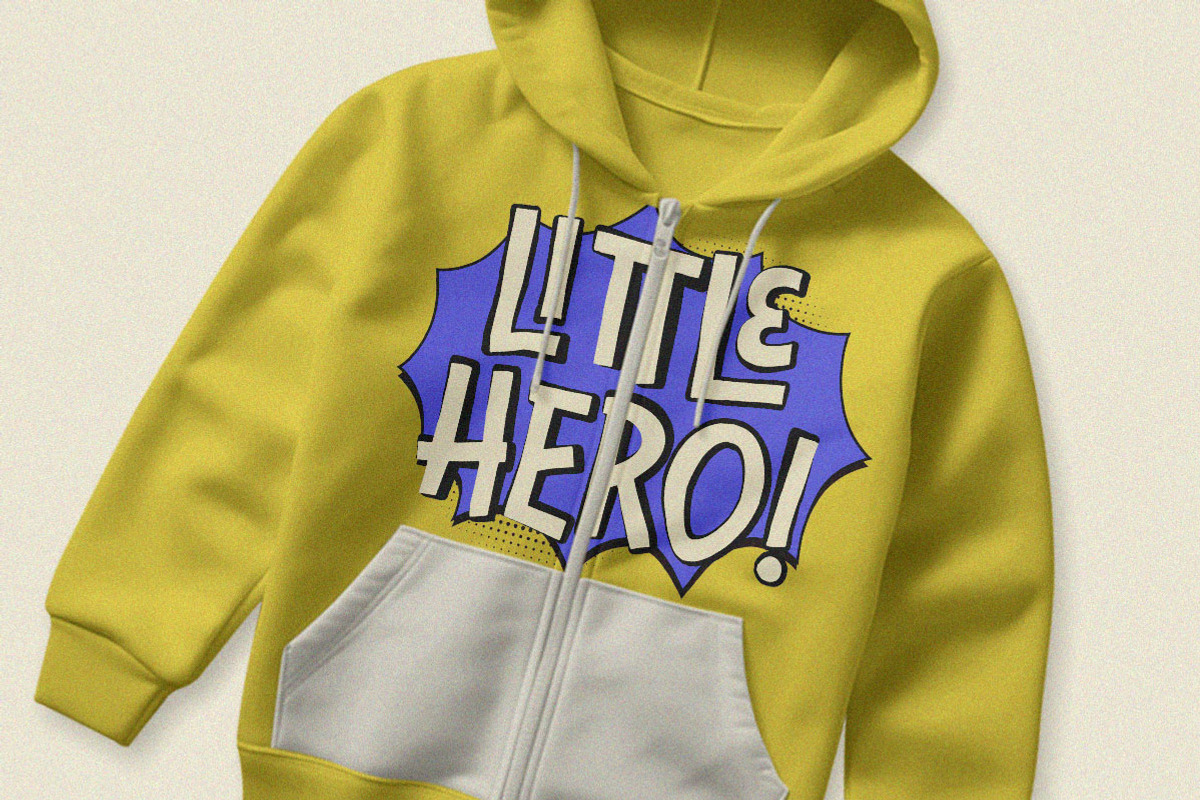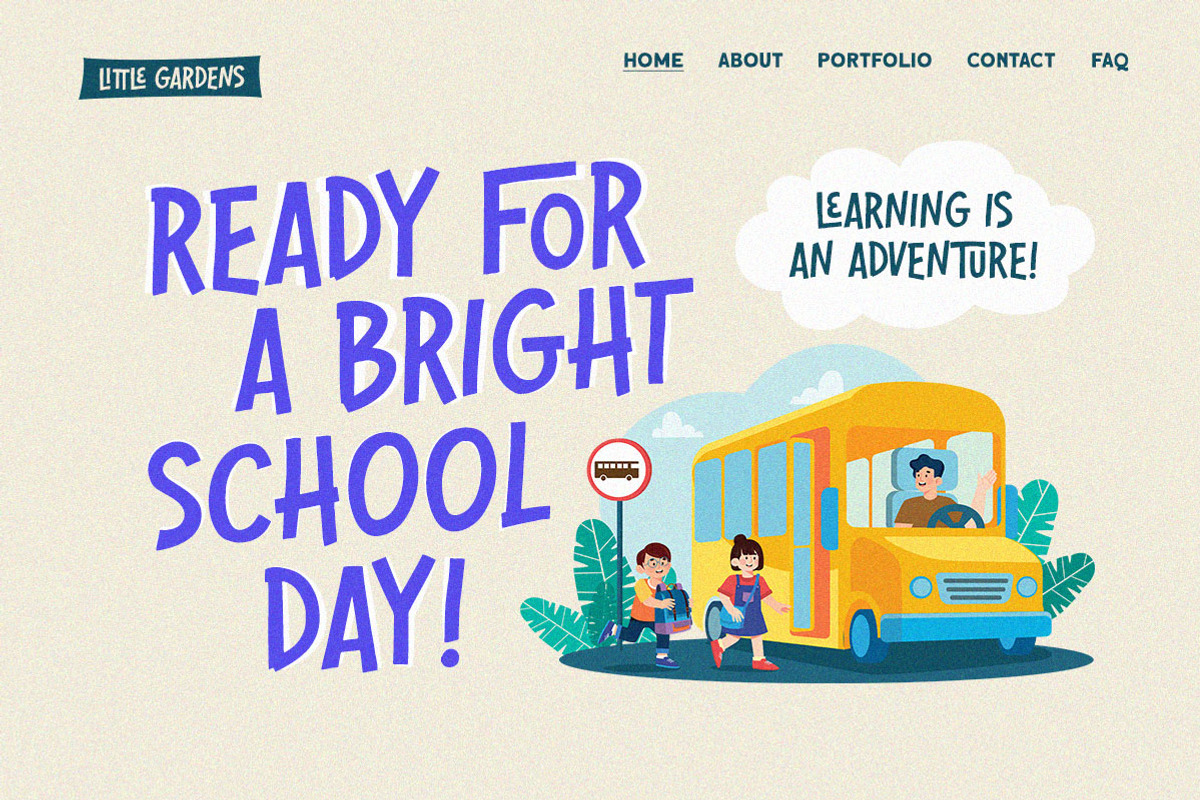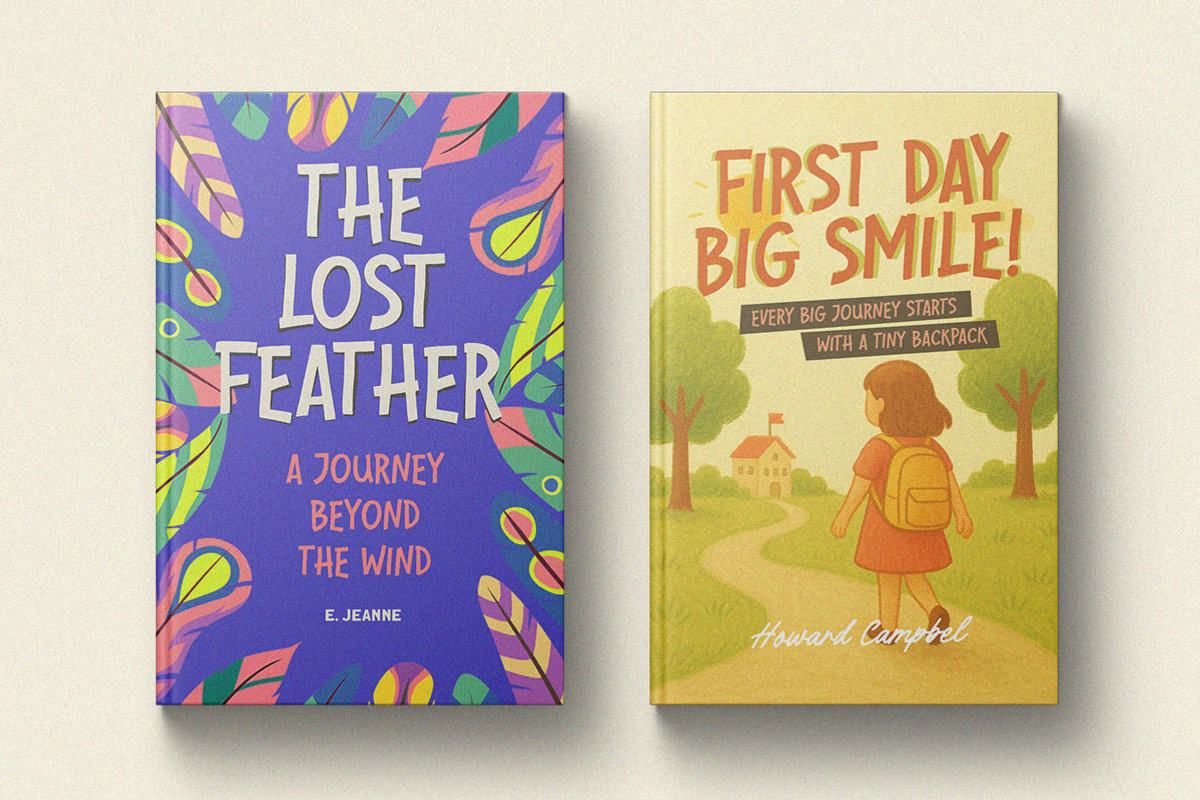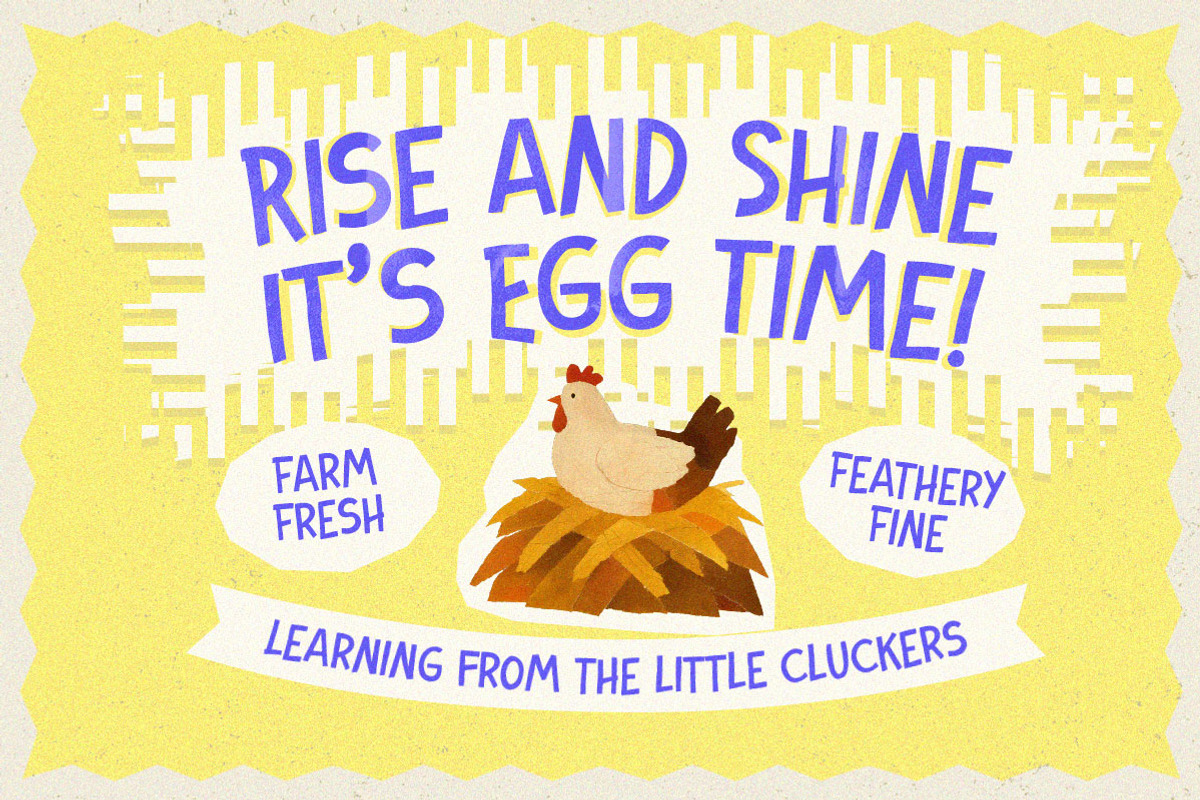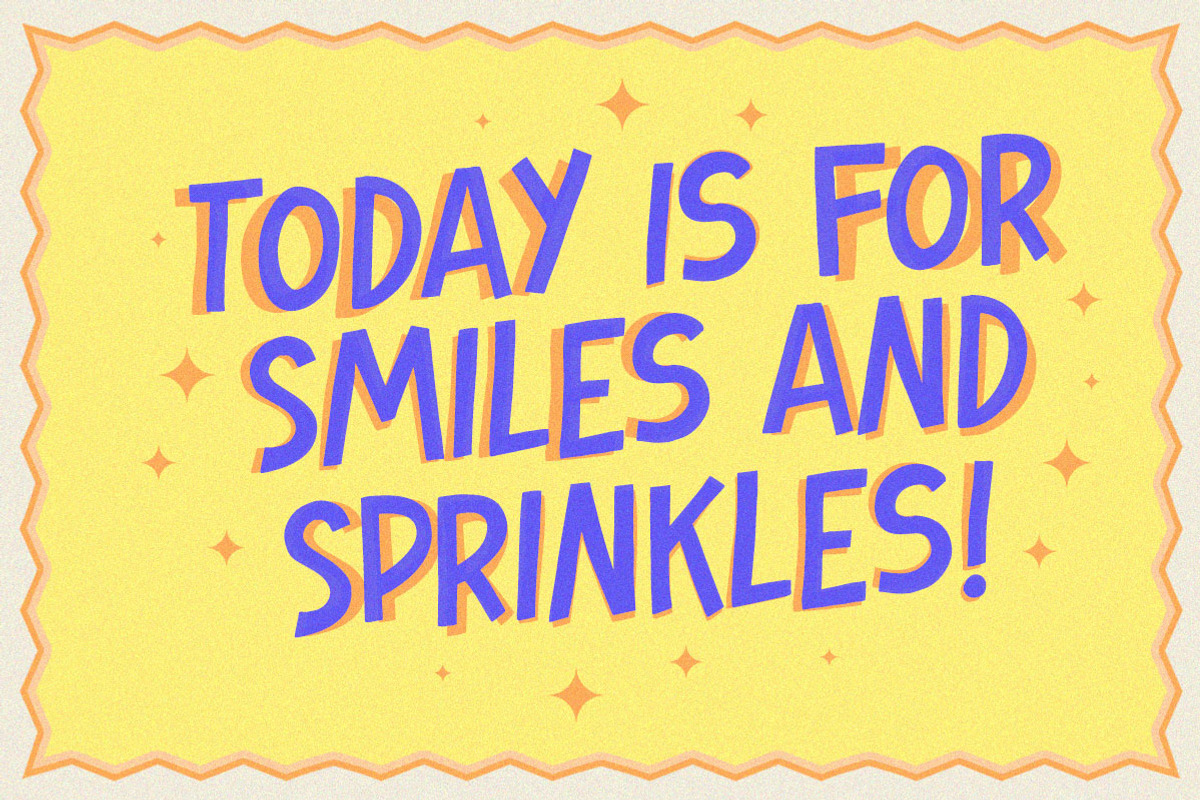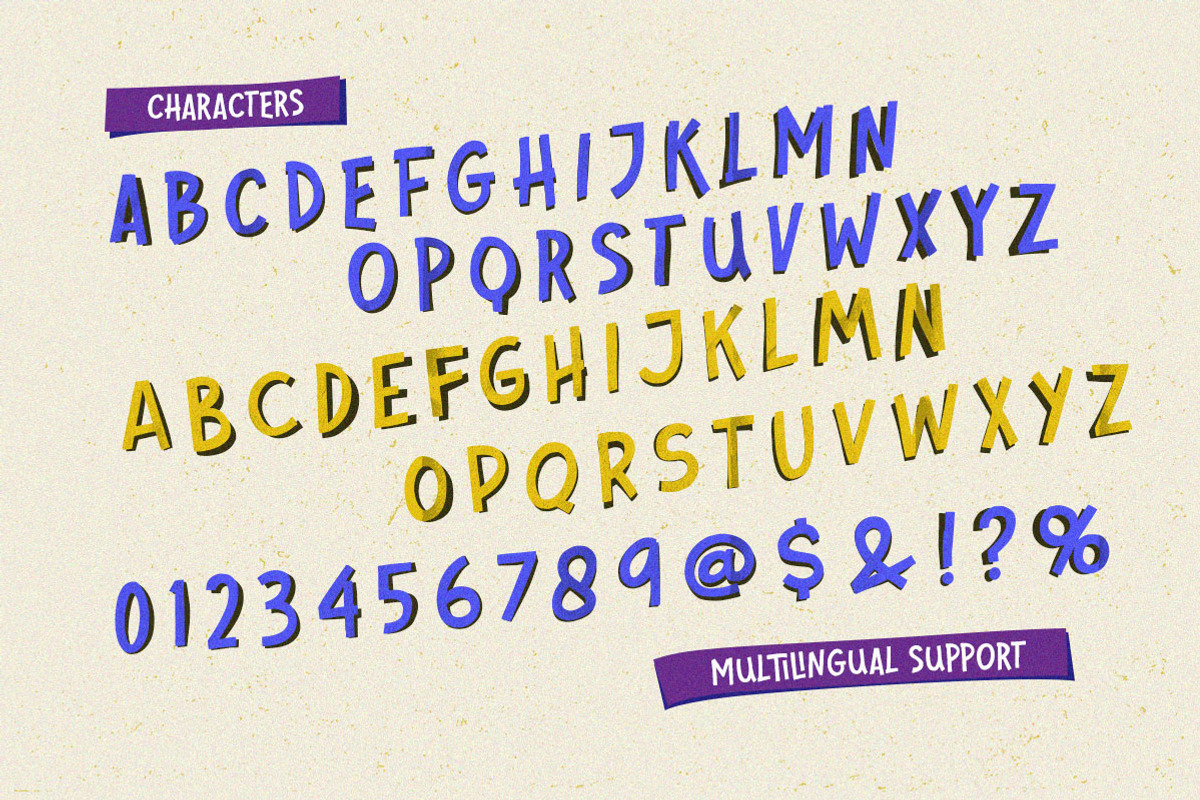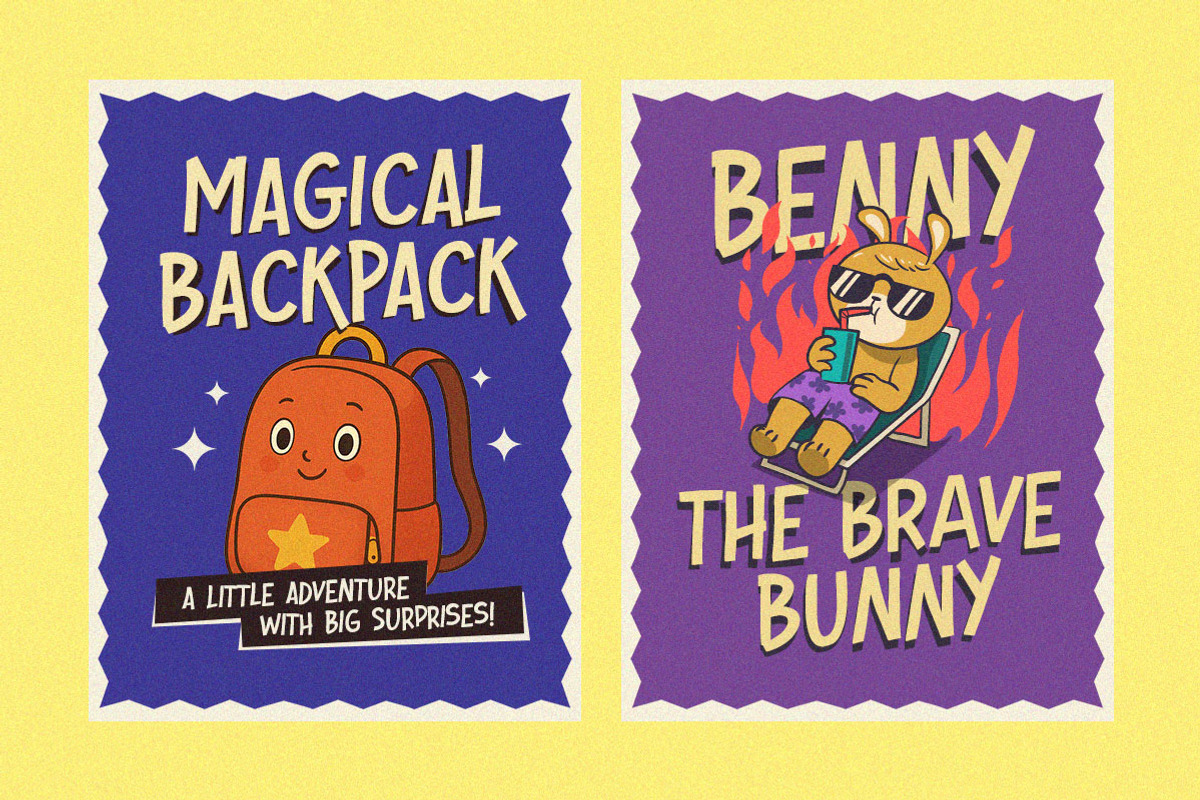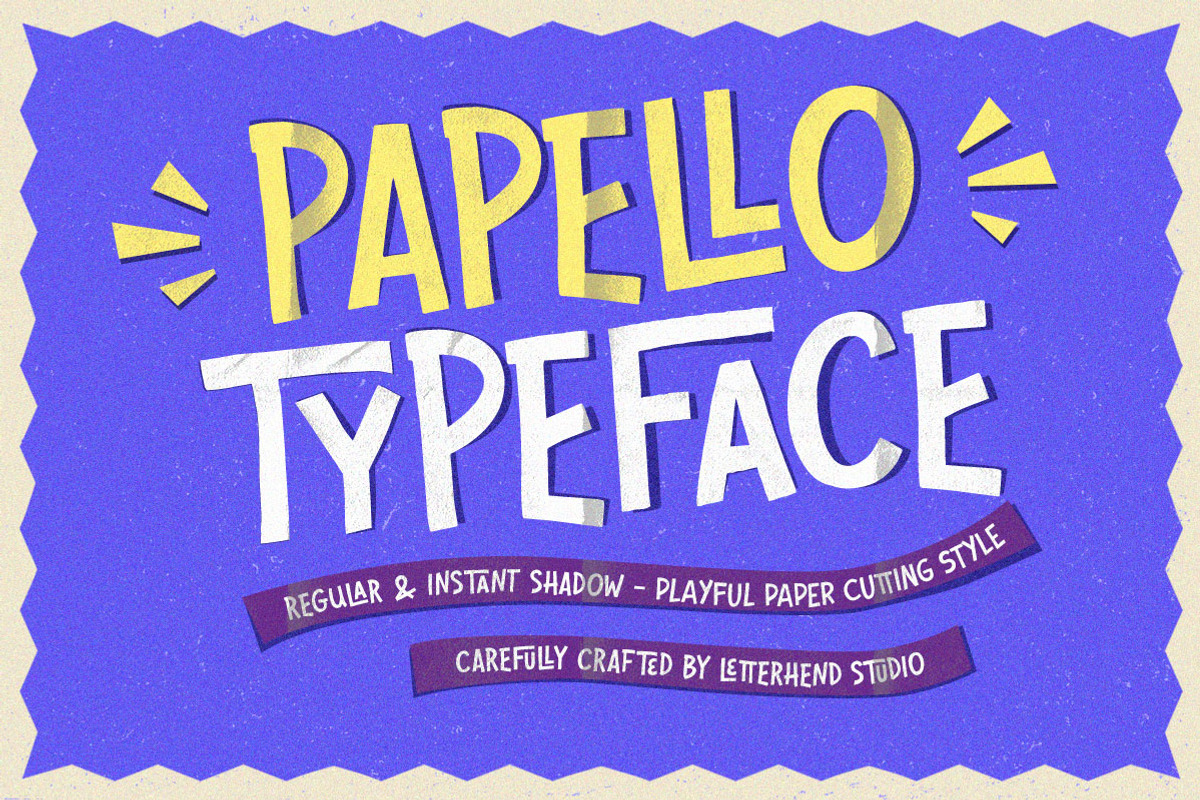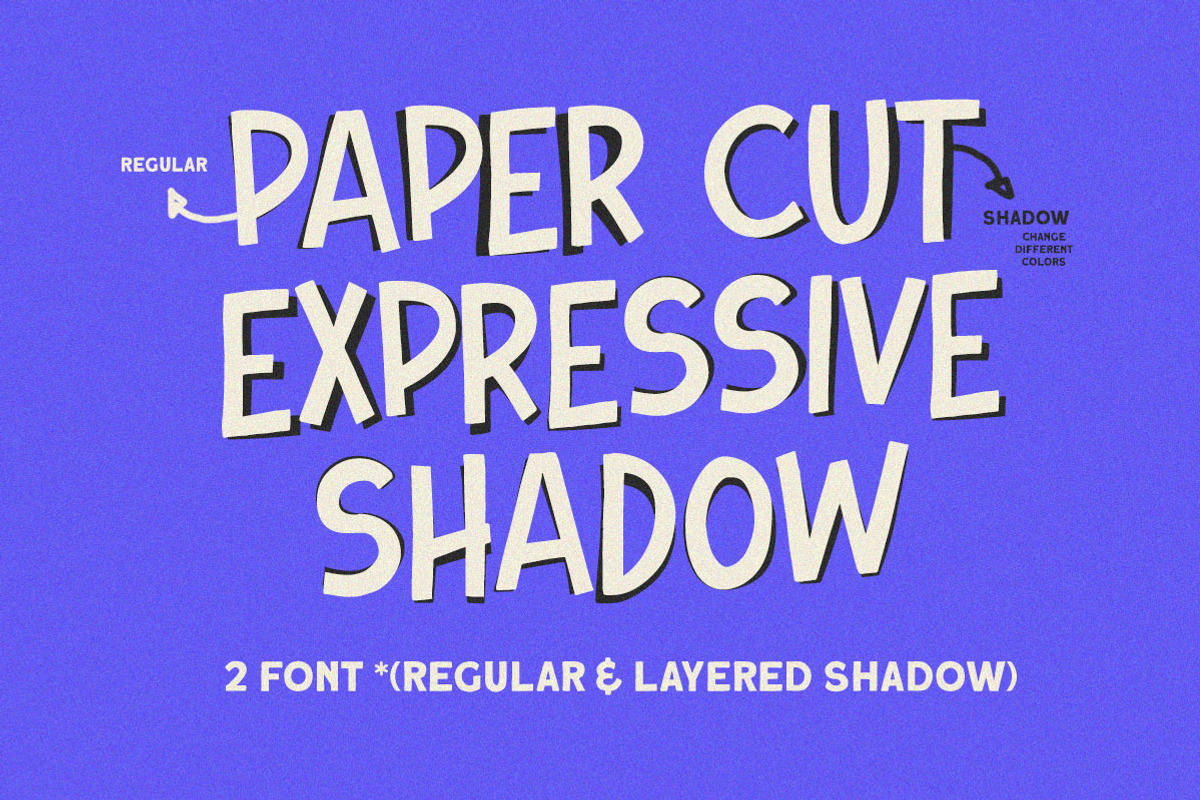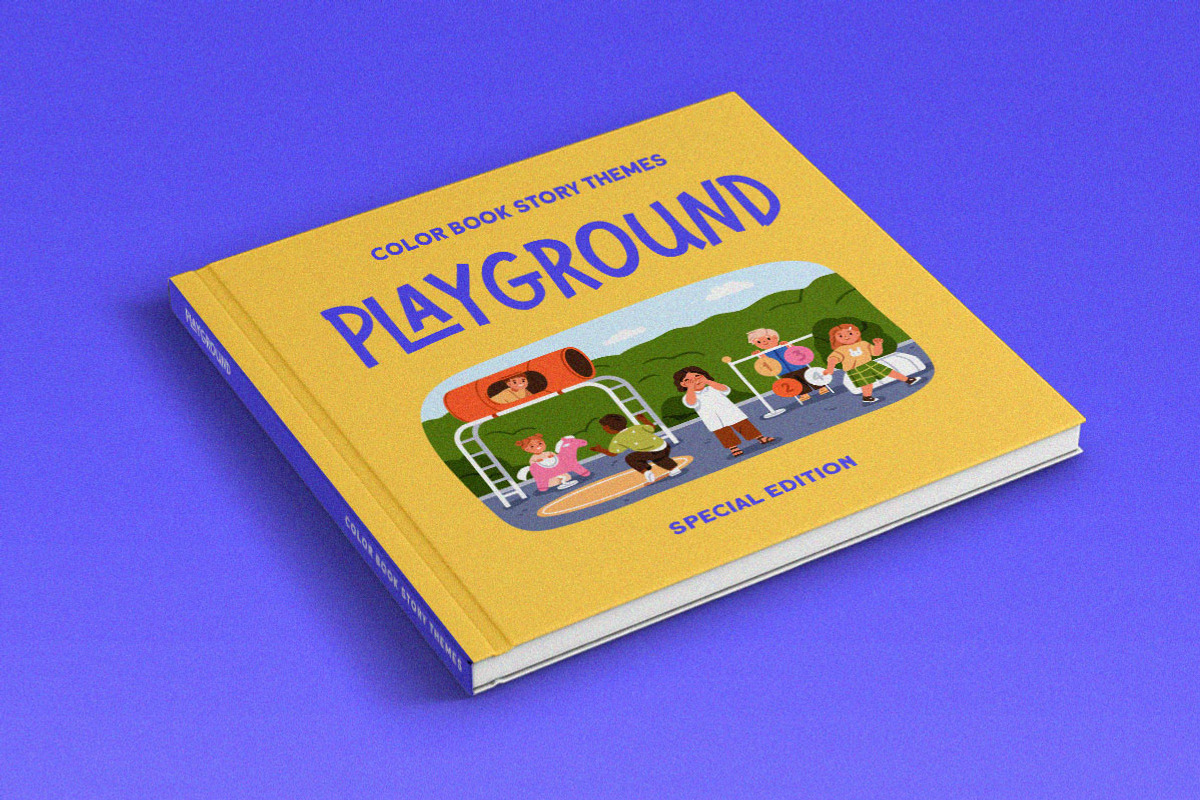
Papello Playful Packaging Font
Papello is a fun and playful display font inspired by paper-cutting art. With its irregular shapes and layered shadow effect, this typeface adds a handcrafted and lively touch to any design. It’s perfect for posters, children’s books, packaging, and creative titles that need a cheerful and crafty personality.